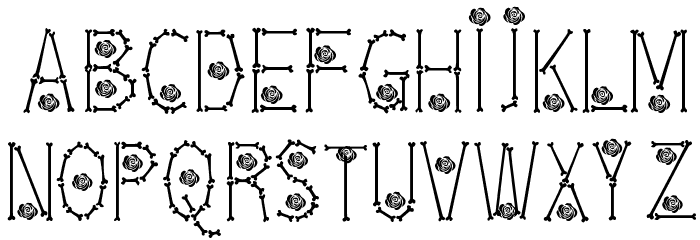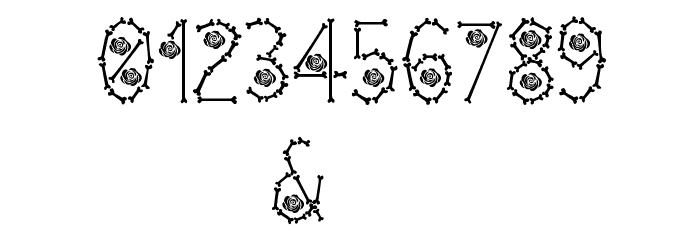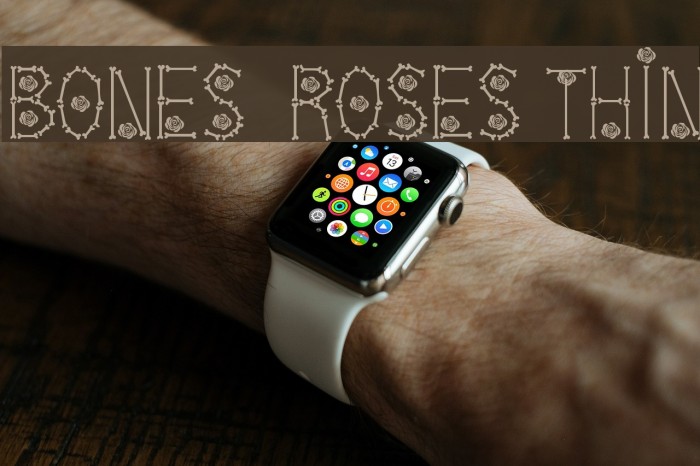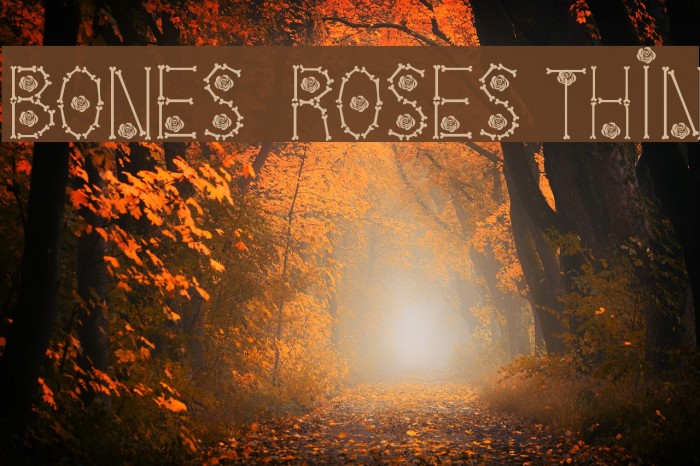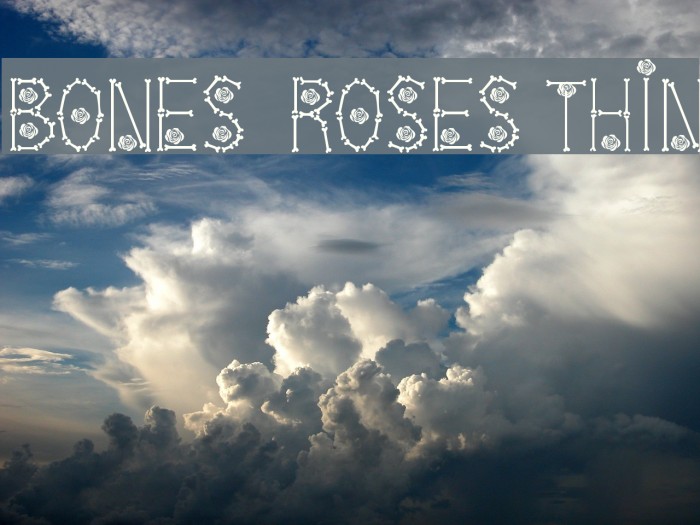
Bones Roses Thin Font
This font features a unique and intricate design where each character is composed of bone-like structures intertwined with roses. The letters are formed with a skeletal framework, giving it a gothic and decorative appearance. The inclusion of roses adds an element of elegance and contrast, making it suitable for artistic and thematic projects. The font maintains a consistent structure across uppercase, lowercase, and numerals, ensuring readability while preserving its distinct style. Special characters are also designed with the same thematic elements, enhancing the overall cohesiveness of the font.
A decorative font combining skeletal structures with roses for a gothic aesthetic.
- Weight: Thin
- Proposed Projects: Ideal for Halloween-themed designs, gothic art projects, album covers, or any creative work requiring a dramatic and artistic touch.
- Overall Style: Gothic, Decorative
- Use Case: Logos, Posters, Artistic Titles